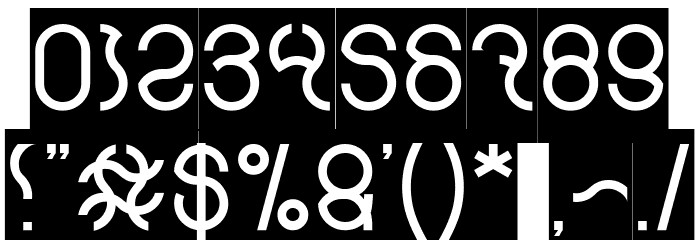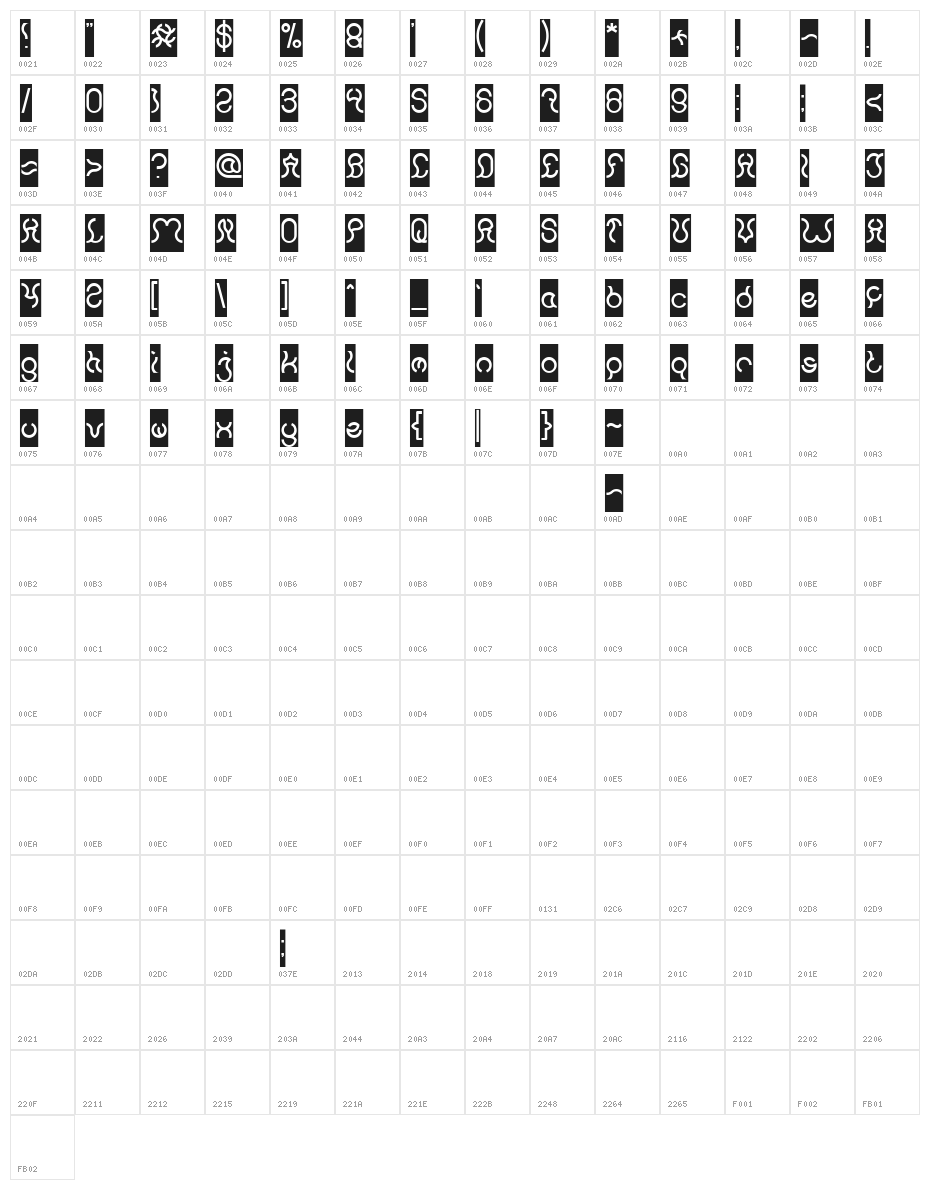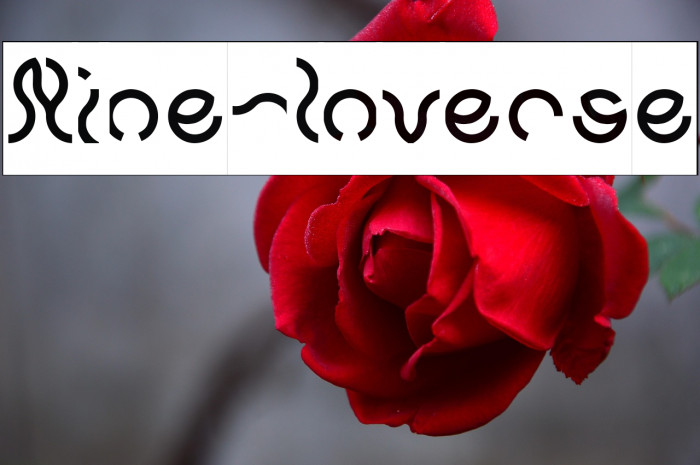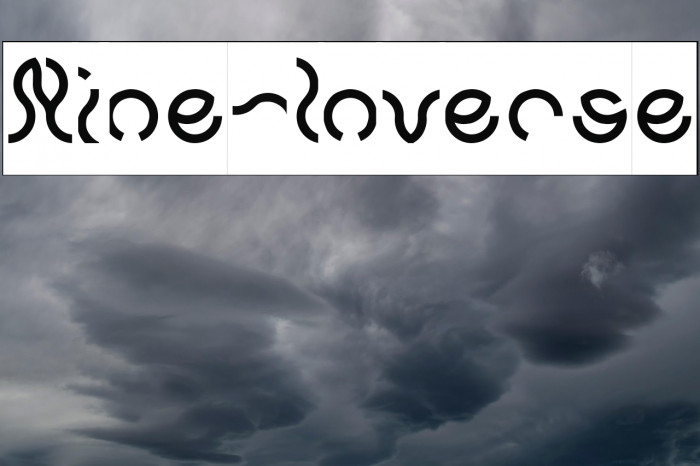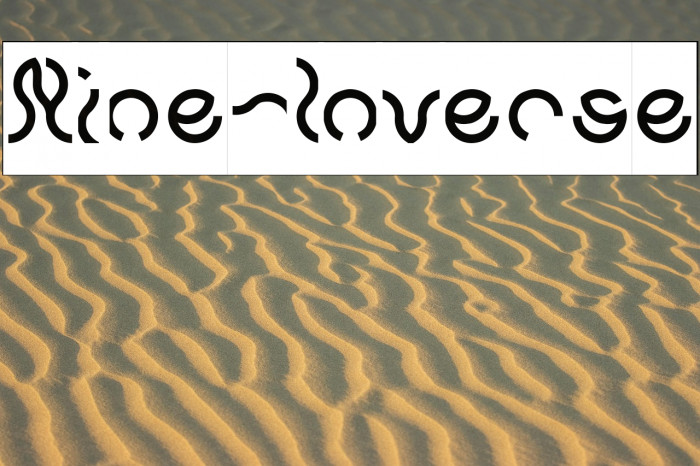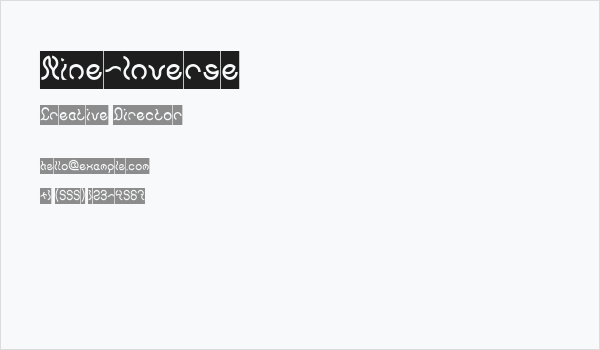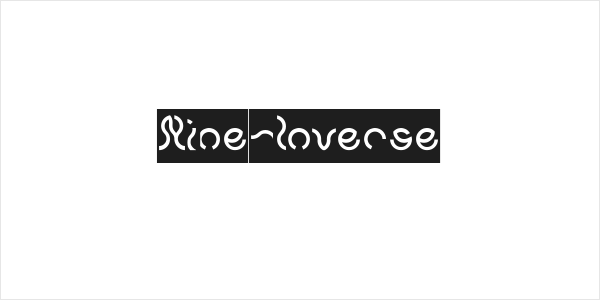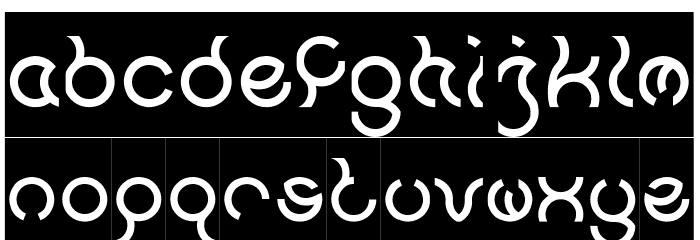
Nine-Inverse Font
Nine-Inverse Description
This font features a unique and artistic design with a modern twist. The characters are crafted with a combination of bold strokes and intricate curves, creating a visually striking appearance. The uppercase letters exhibit a strong presence with their bold and rounded forms, while the lowercase letters maintain a consistent style with slightly softer curves. The numerals are distinct and maintain the same artistic flair, ensuring readability while adding a decorative touch. Special characters are creatively designed, blending seamlessly with the overall aesthetic. This font is ideal for projects that require a bold statement and a touch of creativity.